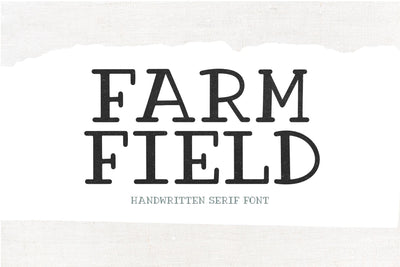
Farm Field - Handwritten Farmhouse Font
Farm Field is a farmhouse serif font.
This font is perfect for cricut projects, farmhouse designs, signs, procreate, branding, logos and more!